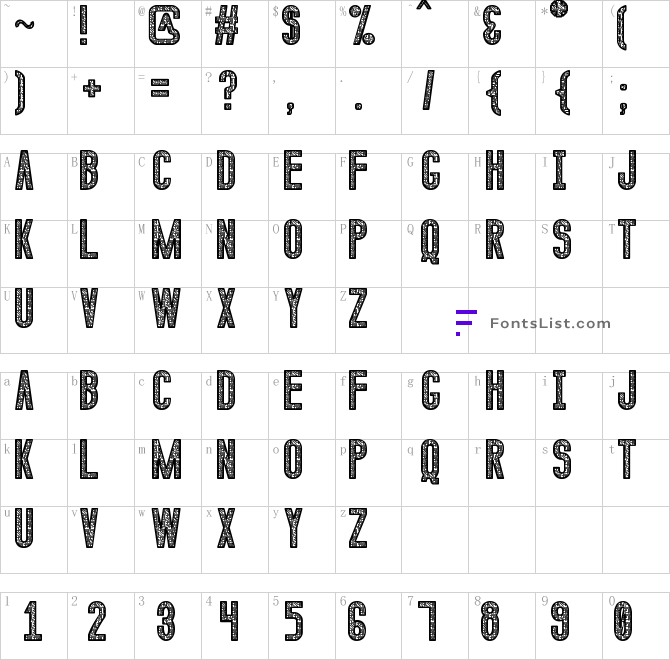
- Font Name:Calendulia St
Calendulia-St.ttf is a very beautiful artistic font, Calendulia-St.ttf is widely used in the design and printing of various books and pictures,Calendulia-St.ttf has a strong visual impact,Calendulia-St.ttf is a commonly used font in newspapers, magazines and books, and is used in posters, e-commerce Poster design, store design, logo design, font design and other fields.Calendulia-St.